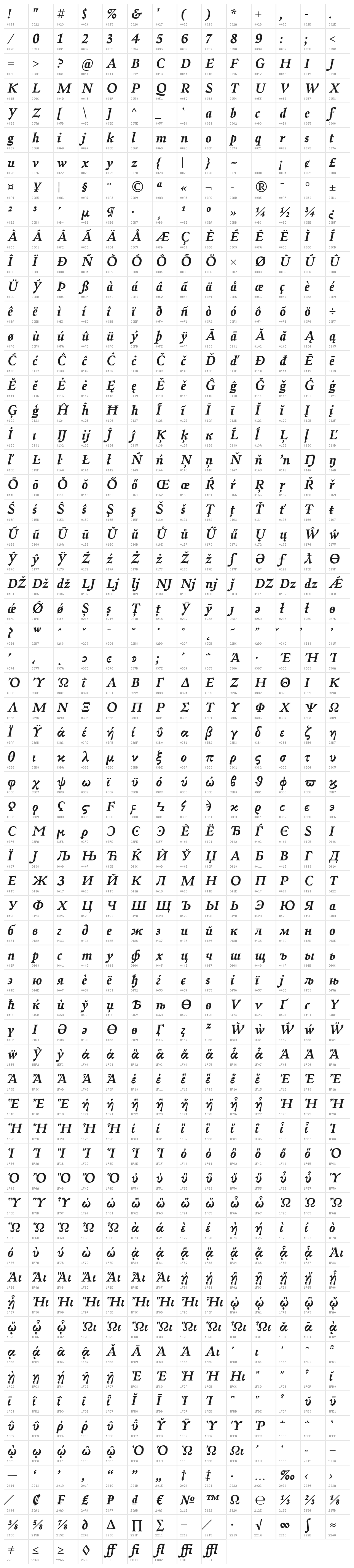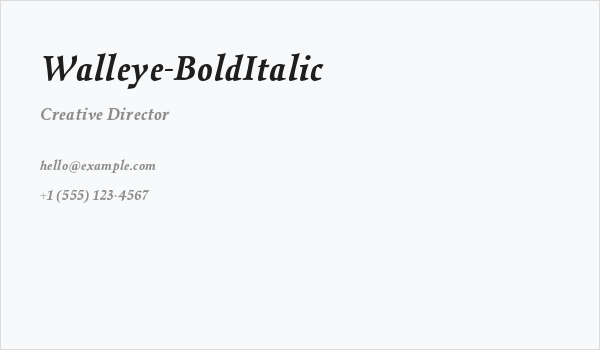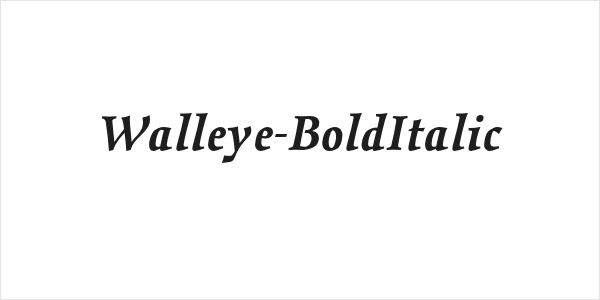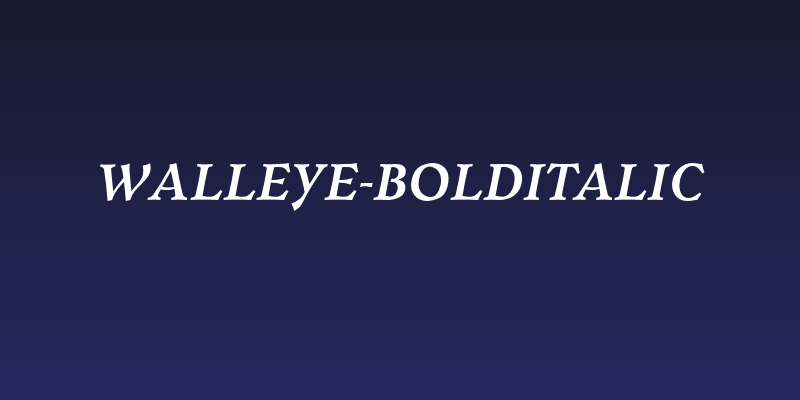
Walleye-BoldItalic Font
Walleye-BoldItalic Description
This font features a bold and italic style, combining a strong presence with a dynamic slant. The characters are well-defined with a noticeable contrast between thick and thin strokes, giving it a sophisticated and elegant appearance. The serifs are pronounced, adding a classic touch to the overall design. The font maintains a consistent weight throughout, ensuring readability while providing a distinct flair. Its italic nature adds a sense of movement and fluidity, making it suitable for both formal and creative applications.
| Use Case | Headlines, Logos, Editorial design |
| Proposed Projects | Ideal for branding, editorial design, book covers, and elegant invitations. |